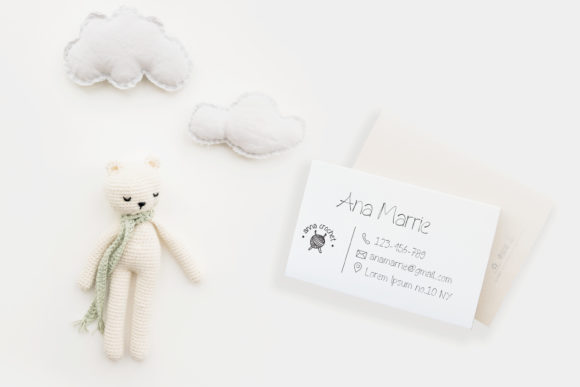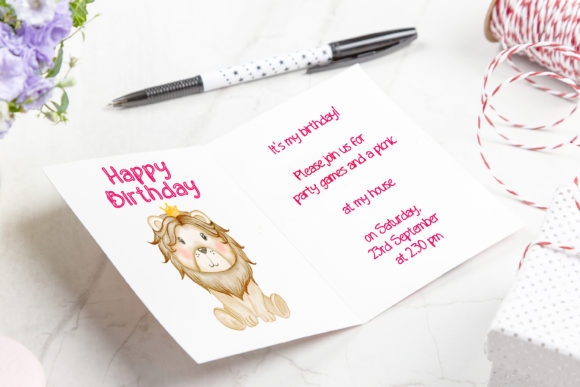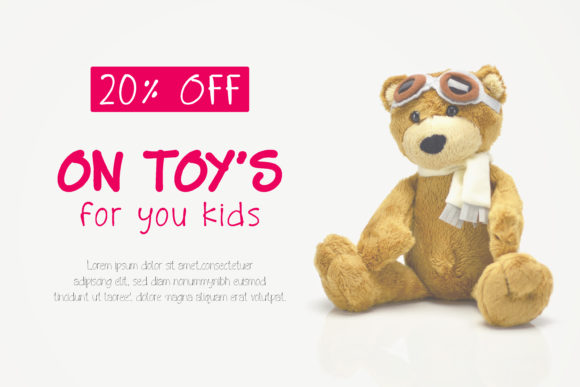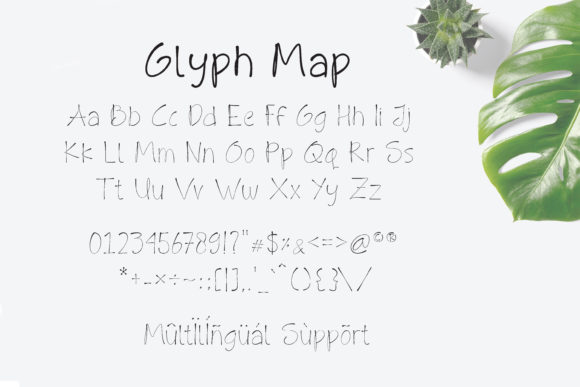
Introducing Fly High Font: Elevate Your Designs with a Personalized Touch
Are you tired of using the same old fonts in your design projects? Do you want to add a touch of personality and uniqueness to your creations? Look no further than Fly High Font, an authentic handwritten font that’s perfect for designers and crafters alike. In this article, we’ll take a closer look at Fly High Font, its features, and how you can use it to take your designs to new heights.
What is Fly High Font?
Fly High Font is a beautiful, handwritten font that’s designed to give your designs a personalized appearance. With its unique and authentic feel, this font is perfect for a wide range of projects, from creative crafts to digital designs. Whether you’re a designer, crafter, or DIY enthusiast, Fly High Font is a versatile and stylish choice that’s sure to impress.
Key Features of Fly High Font
• Authentic Handwritten Style: Fly High Font boasts an authentic handwritten style that’s warm, friendly, and inviting. Its unique character makes it perfect for designs that require a personal touch.
• High-Quality Design: This font is designed with high-quality craftsmanship in mind, ensuring that it looks great in any design project.
• Versatile and Flexible: Fly High Font is suitable for a wide range of projects, from digital designs to print materials, and can be used for both personal and commercial purposes.
• Easily Readable: The font is designed to be easily readable, making it perfect for body text, headings, and titles.
How to Use Fly High Font in Your Designs
Using Fly High Font in your designs is easy. Here are some ideas to get you started:
• Creative Crafts: Use Fly High Font to add a personal touch to your craft projects, such as handmade cards, gift tags, and scrapbooking.
• Digital Designs: Add Fly High Font to your digital designs, such as social media graphics, blog posts, and website headers.
• Print Materials: Use Fly High Font in your print materials, such as brochures, flyers, and posters.
• Branding and Packaging: Use Fly High Font to create unique and memorable branding and packaging designs.
Benefits of Using Fly High Font
Using Fly High Font in your designs offers a range of benefits, including:
• Unique and Memorable Designs: Fly High Font helps you create unique and memorable designs that stand out from the crowd.
• Personalized Appearance: This font adds a personal touch to your designs, making them more relatable and engaging.
• Time-Saving: With Fly High Font, you can create professional-looking designs quickly and easily, saving you time and effort.
Fly High Font is a versatile and stylish handwritten font that’s perfect for designers and crafters alike. With its authentic and unique feel, this font is sure to elevate your designs and add a personal touch. Whether you’re working on a creative craft project or a digital design, Fly High Font is a great choice. So why wait? Download Fly High Font today and take your designs to new heights!
• Is Fly High Font easy to read?: Yes, Fly High Font is designed to be easily readable, making it perfect for body text, headings, and titles.